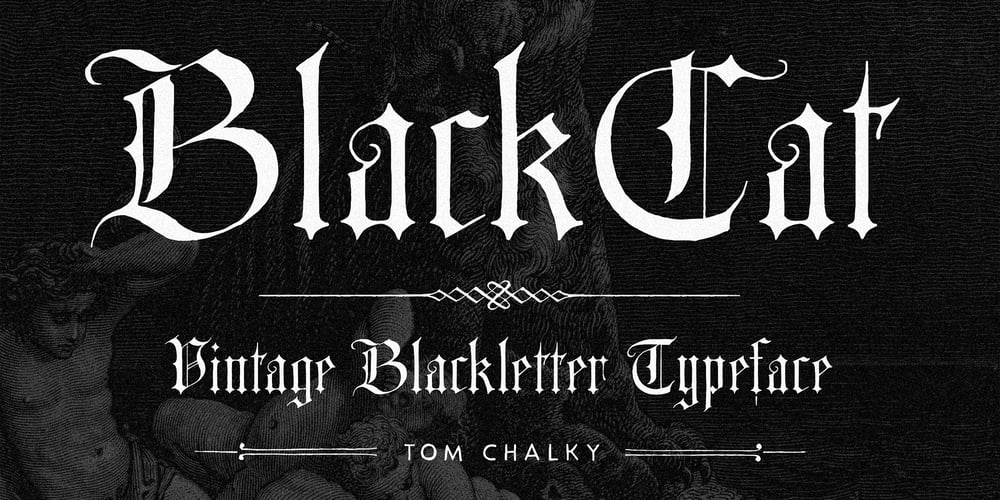
BlackCat Blackletter
BlackCat Blackletter font
BlackCat Blackletter Font Family was designed by Tom Chalky and published by Tom Chalky. BlackCat Blackletter contains 1 styles and family package options. Proudly Introducing BlackCat, an authentically Vintage Blackletter Font. Its design is based on a specimen from the 1800s that oozed that classic Blackletter style that is (I’m glad to see) making a glorious comeback!Quick Overview Multilingual Glyph Set (Latin 1) Great for Display (Fonts, Headlines, Apparel – Big text stuff) This project was a true joy to work on. As some of you may know, the other half of my design business is one I run alongside my wife (Abbie), which includes collecting, restoring, and repurposing vintage illustrations.After acquiring some wonderful vintage typography specimens, I couldn’t pass up the opportunity to make them into working typefaces. While the original prints contained very few glyphs and required plenty of custom work, I’ve tried to stay as true to the design as possible while creating the additional letters, numbers, and symbols.